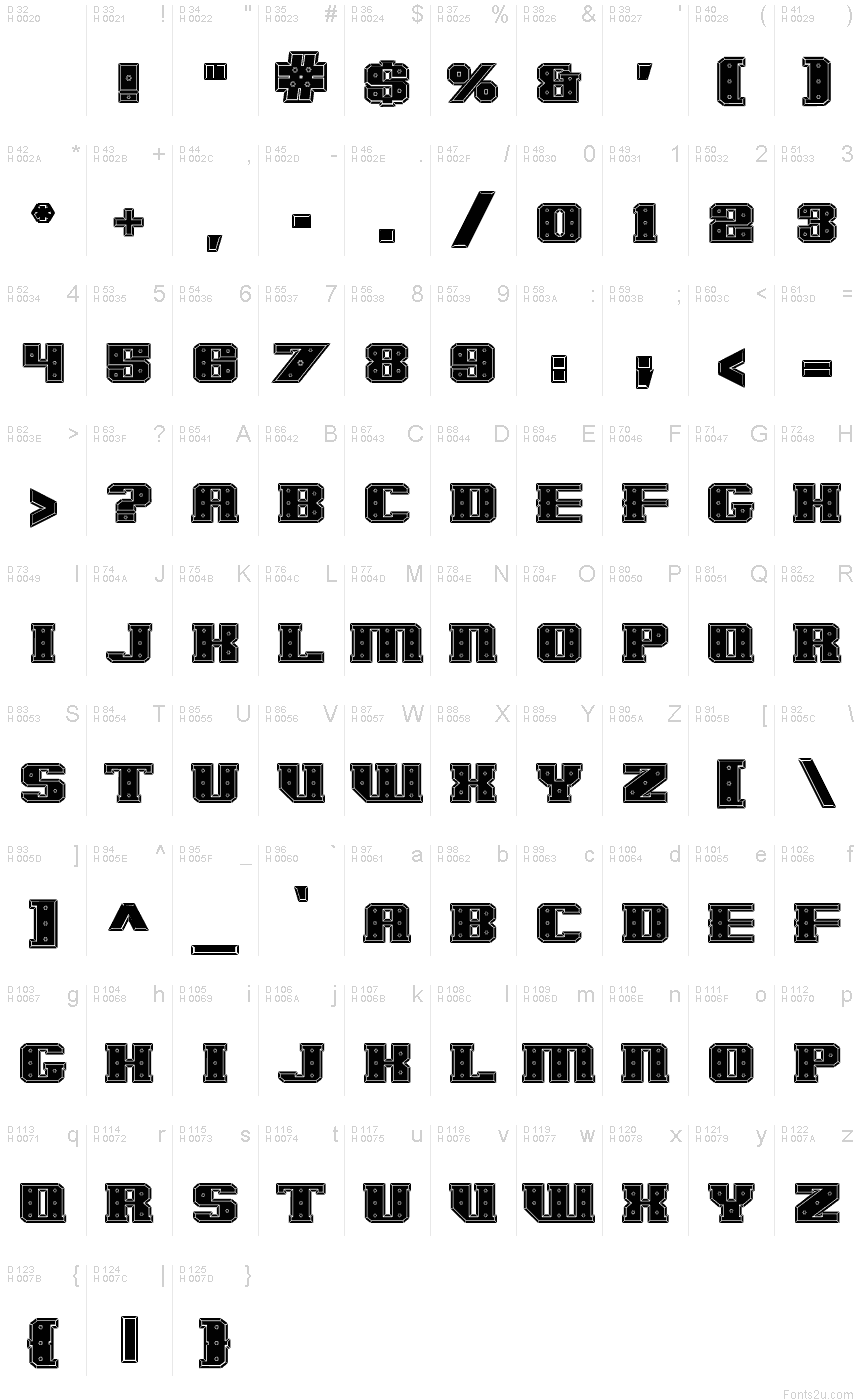
IronCladBoltedRaised
IronClad Bolted Raised font by Digital Empires is a free decorative techno display typeface. Its chunky, octagonal letterforms feel like steel plates bolted together, with crisp white bevels and tiny gear-like rivets scattered across each shape. The raised inner strokes add a metallic depth, giving every word a heavy, industrial presence that feels both retro and slightly futuristic, like signage pulled off an old arcade cabinet or a sci-fi factory wall.
Using IronClad Bolted Raised, you can instantly toughen up game logos, event posters, construction or machinery branding, themed restaurant signage, and retro tech packaging. This free font works best when you let it shout in large headlines and pair it with a clean, unobtrusive sans serif for smaller supporting text.